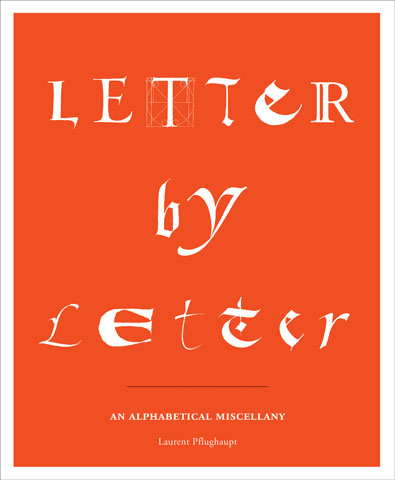
Letter by Letter: An Alphabetical Miscellany
Letters are the building blocks of our language, and quite possibly of our consciousness. Written into young minds through constant repetition, letters soon function like water in a fishbowl--essential for life, but too familiar to qualify as objects of serious inquiry. But considered separately from words and sentences, letters express their own mysterious beauty. In order to uncover their secrets, it is necessary to forego the conventional historical approach in favor of an impassioned appreciation of their formal and sensual characteristics.
In Letter by Letter graphic designer and calligrapher Laurent Pflughaupt analyzes each letter of the Roman alphabet in detail, tracing its origin, evolution, and form, as well as discussing its important abbreviations, symbols, and associated meanings. Arranged in alphabetical order, twenty-six entries offer a wealth of facts about each letter, establishing correspondences between letters and elements borrowed from a variety of different fields of study, ranging from traditional paleography, phonetics, and graphic arts to the more arcane areas of musicology, esotericism, and even Eastern philosophy. In addition to a glossary, timelines and images allow us to visualize the letters during the different historical eras, giving the reader an appreciation of their successive metamorphoses. Written as an homage, this lovingly illustrated book takes a broad approach to the modern alphabet, allowing the reader to see letters anew, in a fresh and lively manner guaranteed to inform and enchant anyone interested in typography and language.
Laurent Pflughaupt is a designer, calligrapher, and artist. He received his degree from the l'Ecole municipale superieure des arts et techniques in Paris and teaches design and typography at numerous European universities.